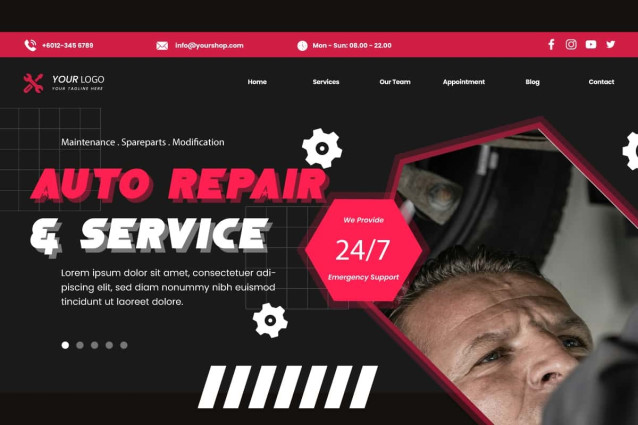
Quick Baricade Font
Quick Baricade Font is a unique font that can convey an impressive modern vibe, by RaisProject. The uniqueness of this font lies in the star that is use to connect the letter across each character, giving it a different appearance. It will be great for poster, label, signage, stationery, custom design, product packaging, quotes, brand image, advertisement, invitation, marketing material, website page, and more!
Quick Baricade Font includes a full set of ALL CAPS for Uppercase and Lowercase Letters, Numerals, and large range of Punctuation. This modern font will be suitable for various industries, such as sports, automotive, fashion, game, barber shop, cafe, event or festival, photography, printing, publishing, etc.